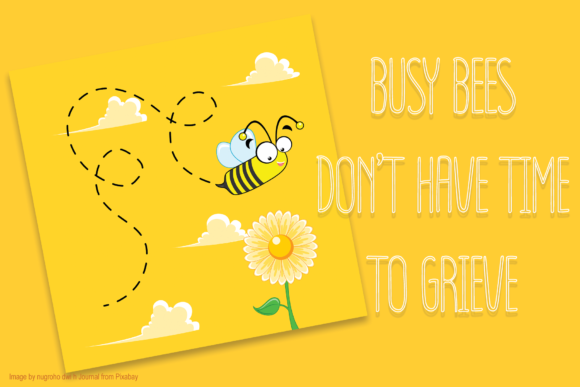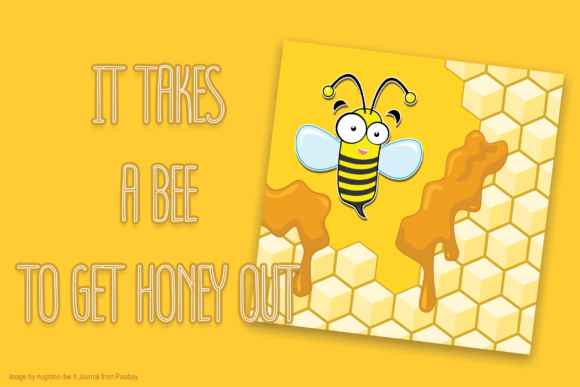
About Bee Happy Font
Bee Happy is a cute and friendly handwritten font. Dainty, simple and neat, this font will match a wide range of designs, both formal and informal.